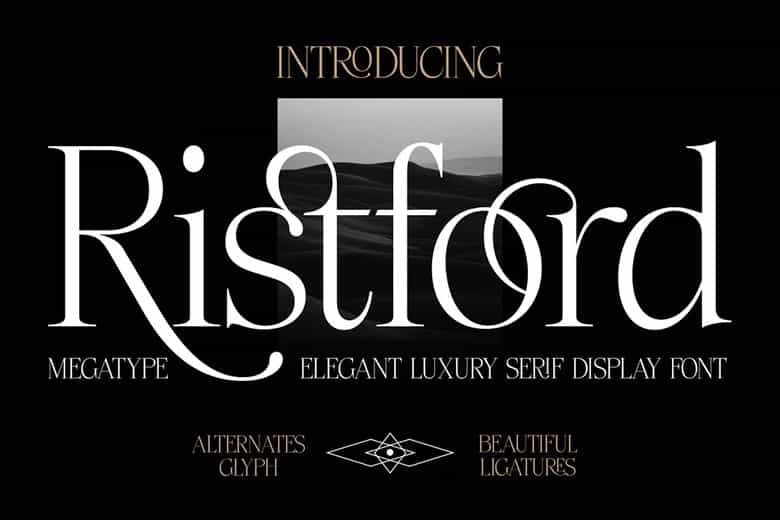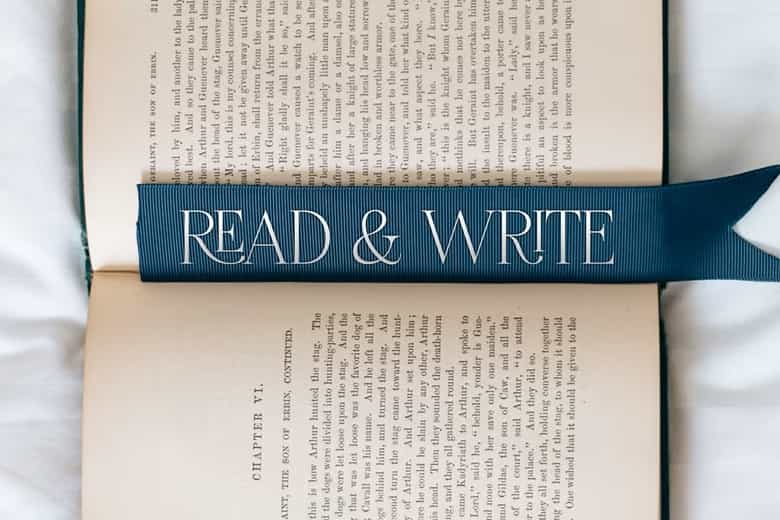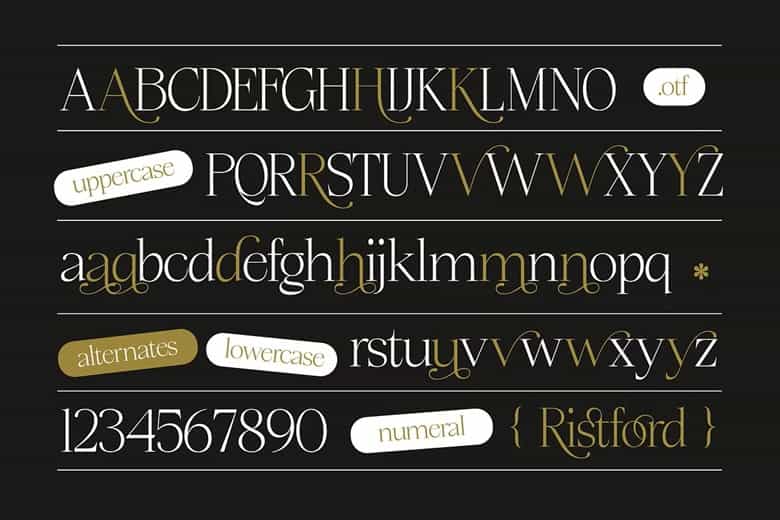
Ristford is a new luxury serif typeface made of elegant letterforms, which combine elegance and contemporary design and loaded with 90s retro personality. Its this beautiful font will really draw your target market attention and stand out your promotions and projects.